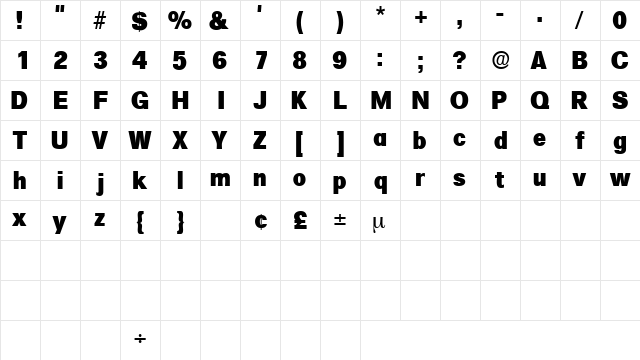
SalinaDisplaySSK Regular
Design Context for SalinaDisplaySSK Typeface
SalinaDisplaySSK is built around its visual character rather than neutral utility — its distinctive forms are designed to make an impression at display sizes.
Font Pairing: Pair with a clean neutral sans-serif for body copy to let SalinaDisplaySSK's character lead without overwhelming the composition.
Pro Tip: Treat SalinaDisplaySSK as the centrepiece of your typographic hierarchy. One strong heading set in a decorative face can carry an entire layout.